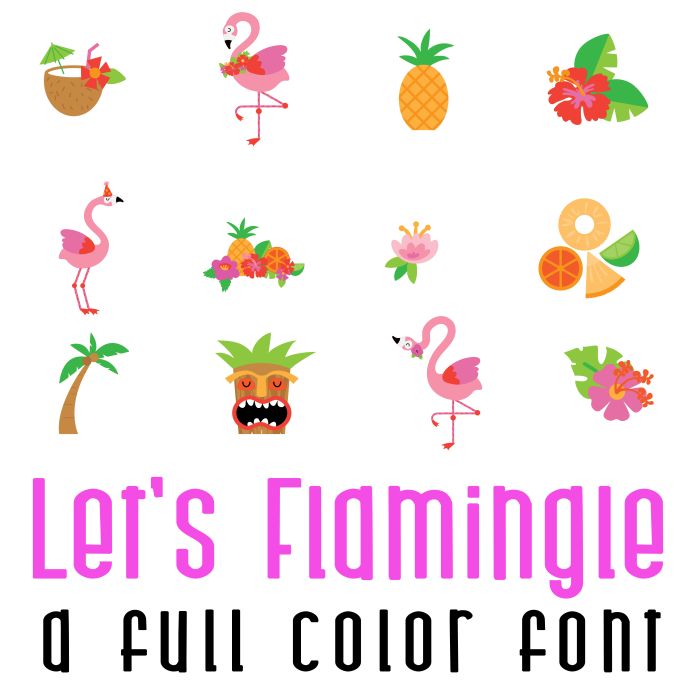
This fun full color font features 31 flamingos and tropical elements with Valentine flair and puns. Use for cards, crafts, decor, gifts, planner stickers, scrapbook pages, classrooms and more! Glyphs are A-Z and 0-3